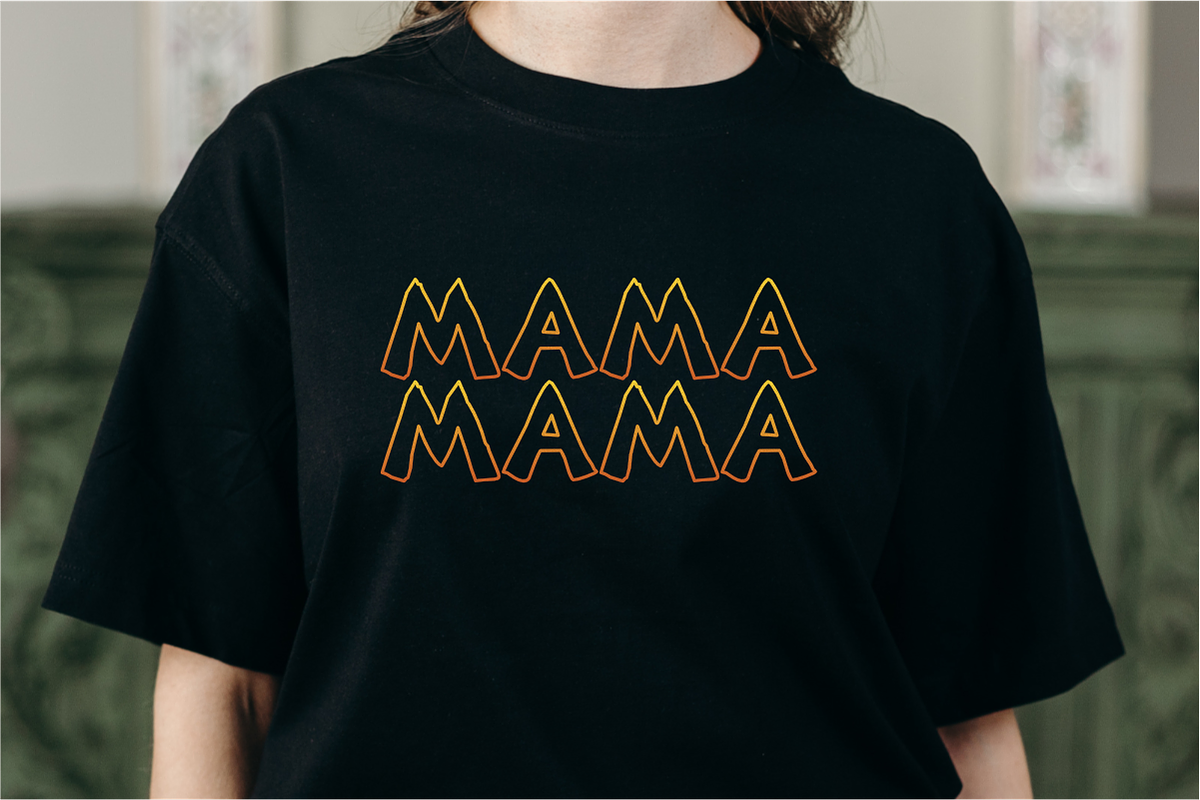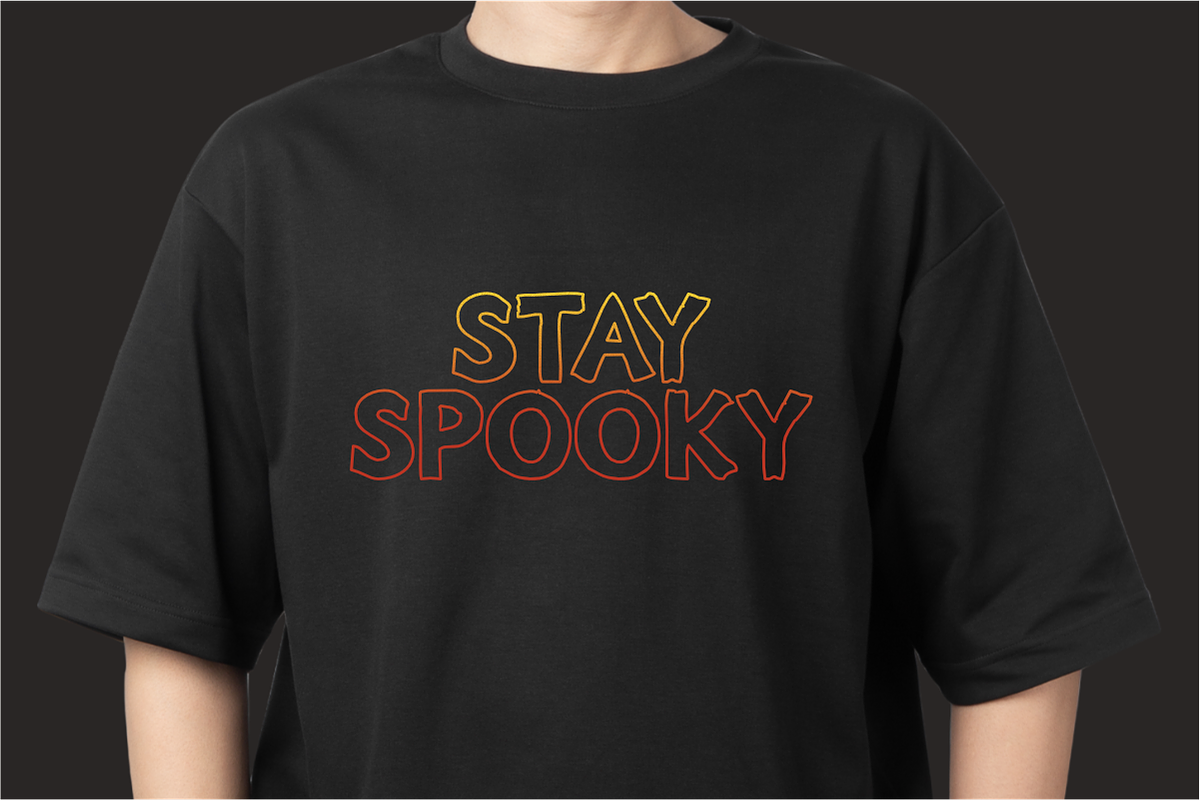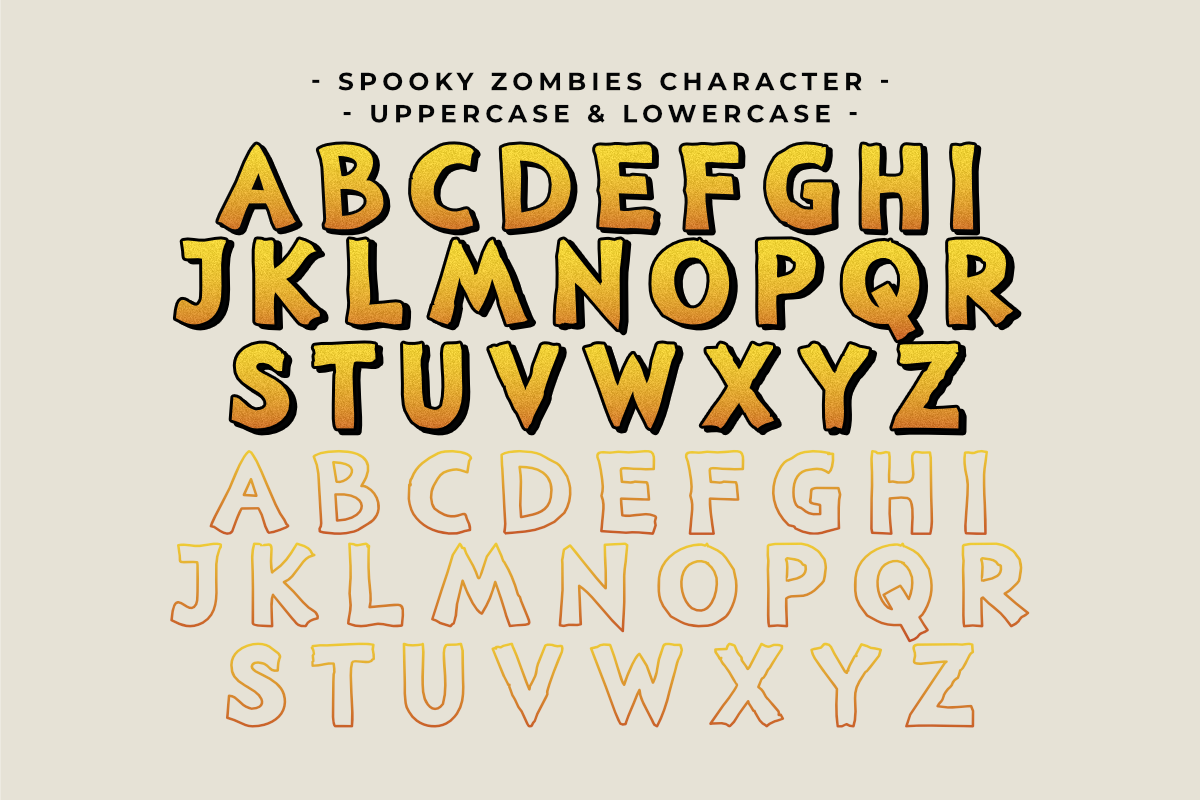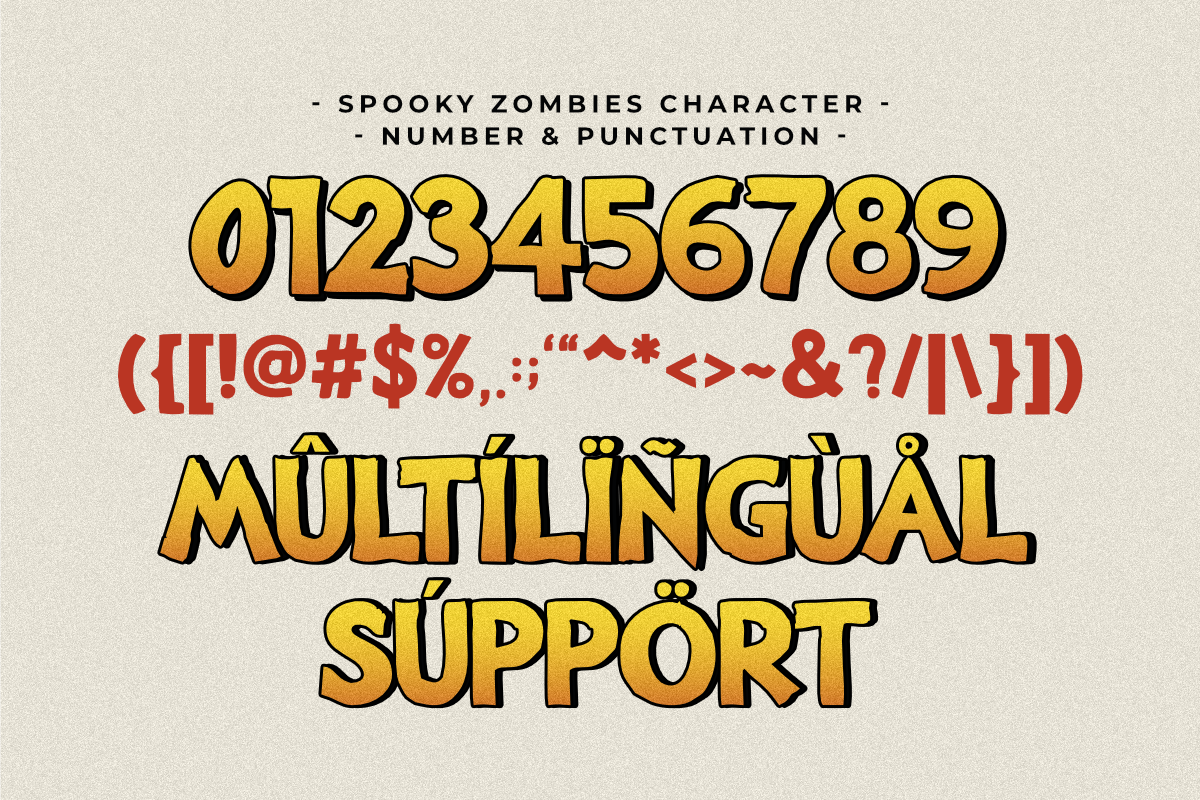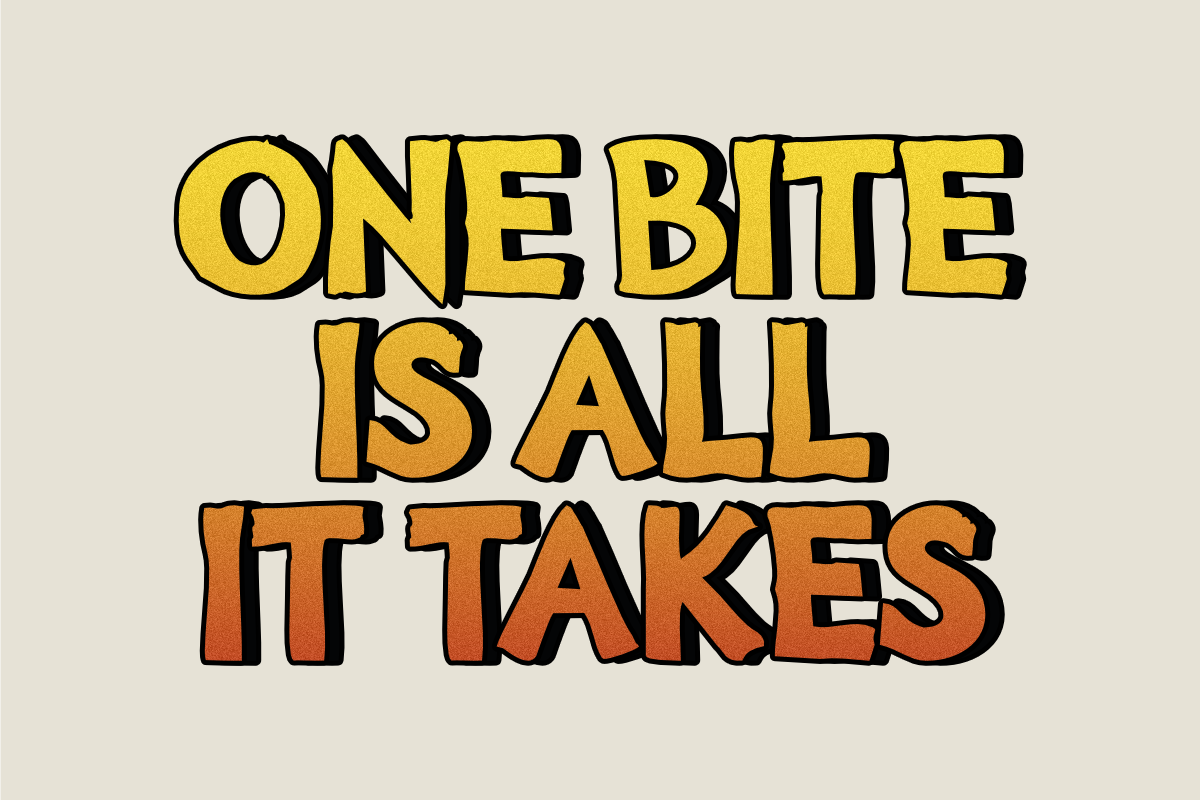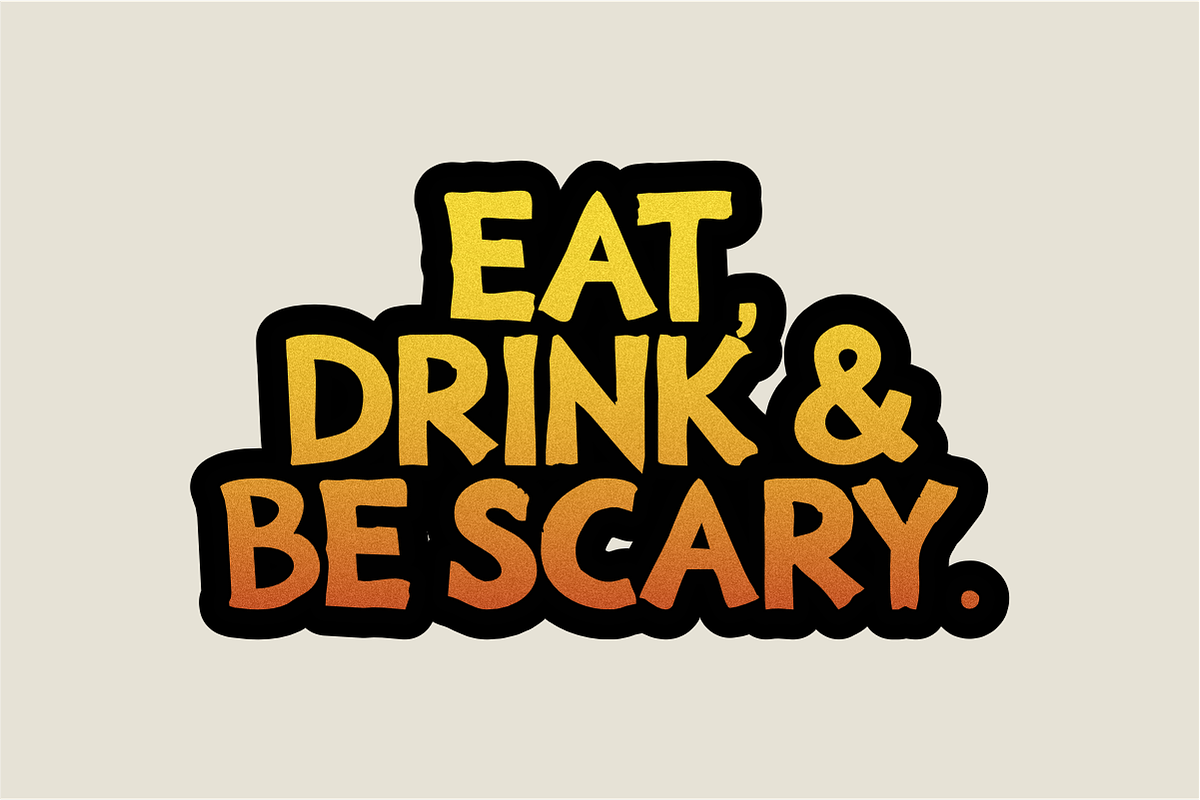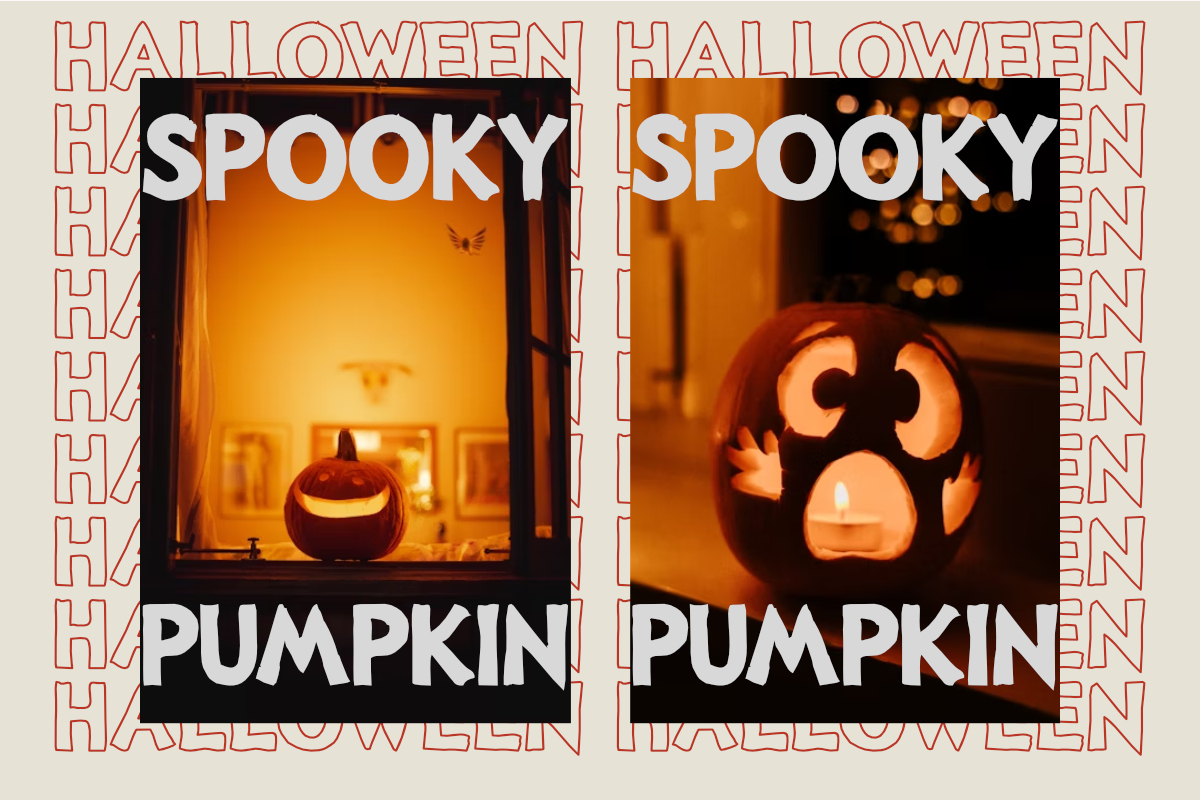
Spooky Zombies - Halloween Display
Spooky Zombies is a bold and unique Halloween display font designed to bring a playful, eerie vibe to any project. Its thick, rounded letterforms and distinctive shape give it a hand-drawn feel, perfect for creating eye-catching titles and headlines. This font is an excellent choice for anything that needs to look both spooky and fun, from party invitations to themed product branding.